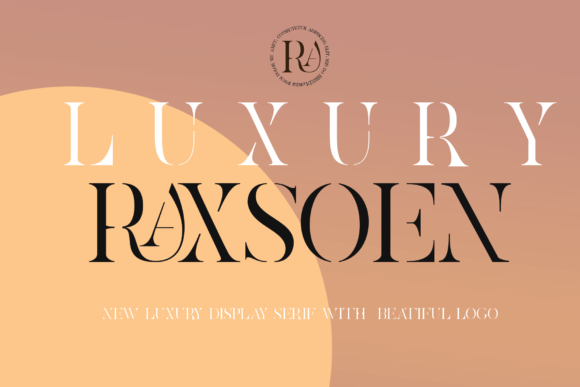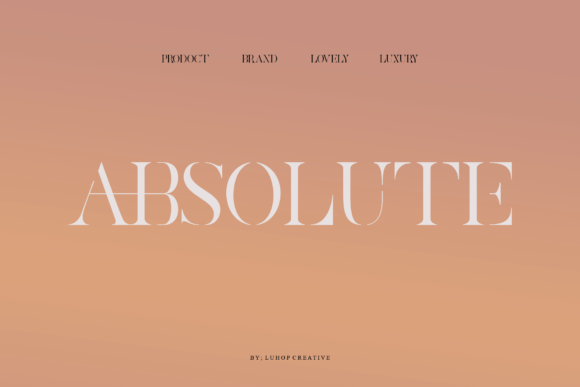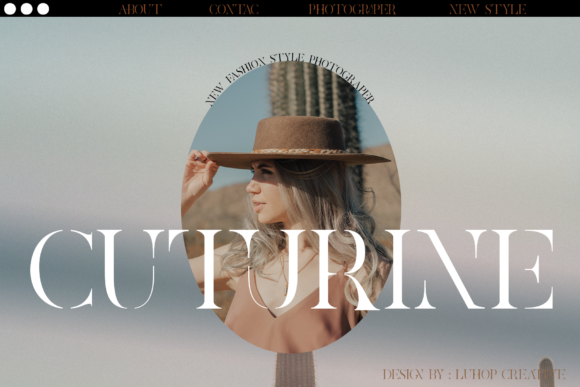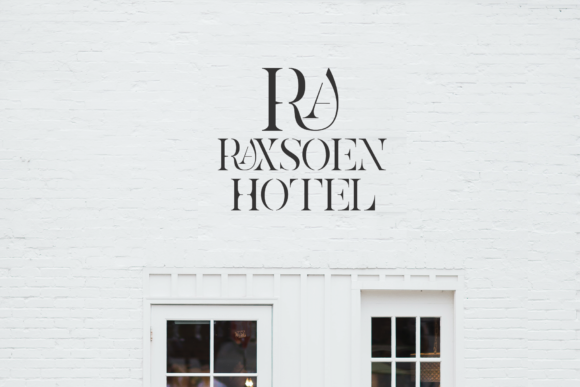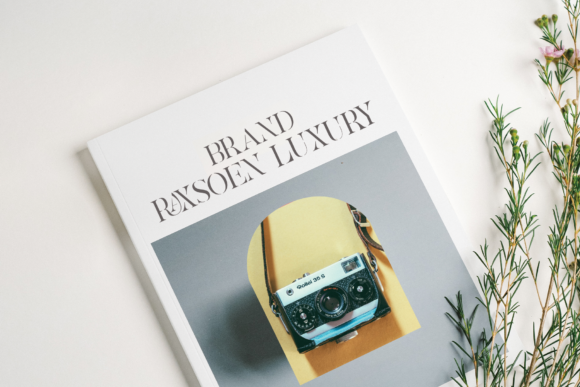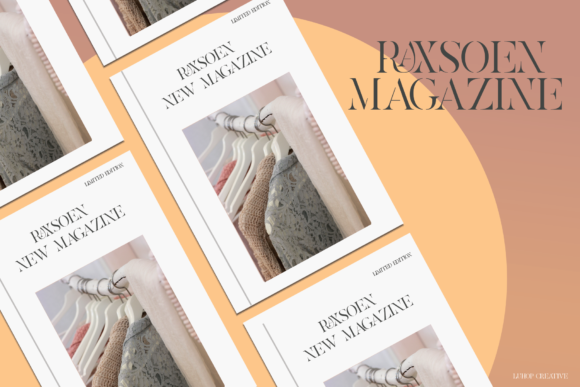
Introduction to Raxsoen Font
Raxsoen is an elegant and distinct serif font.
Trendy and stylish, this font will elevate each of your creations Raxsoen is PUA encoded which means you can access all of the glyphs and swashes with ease.